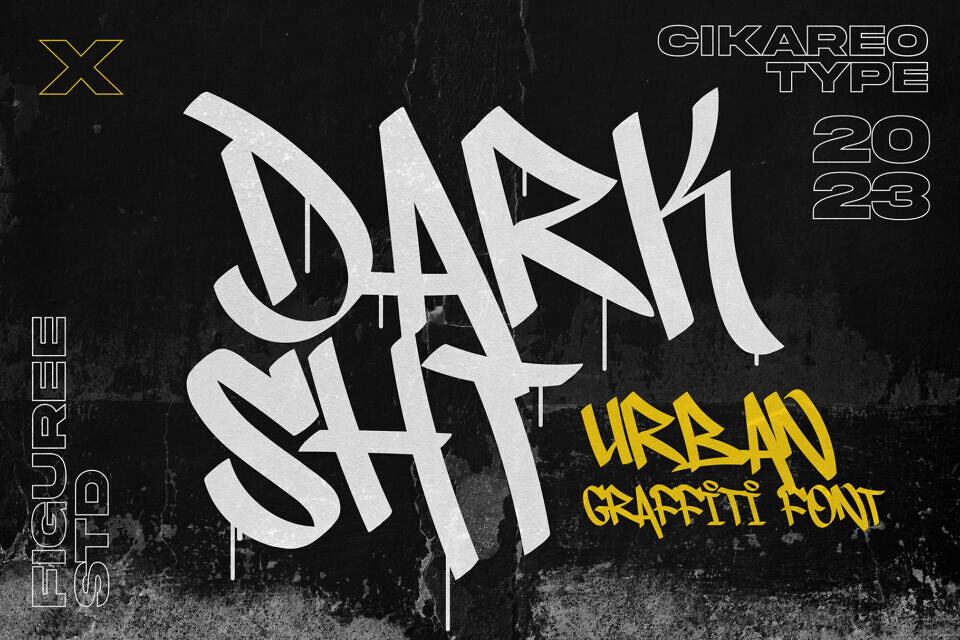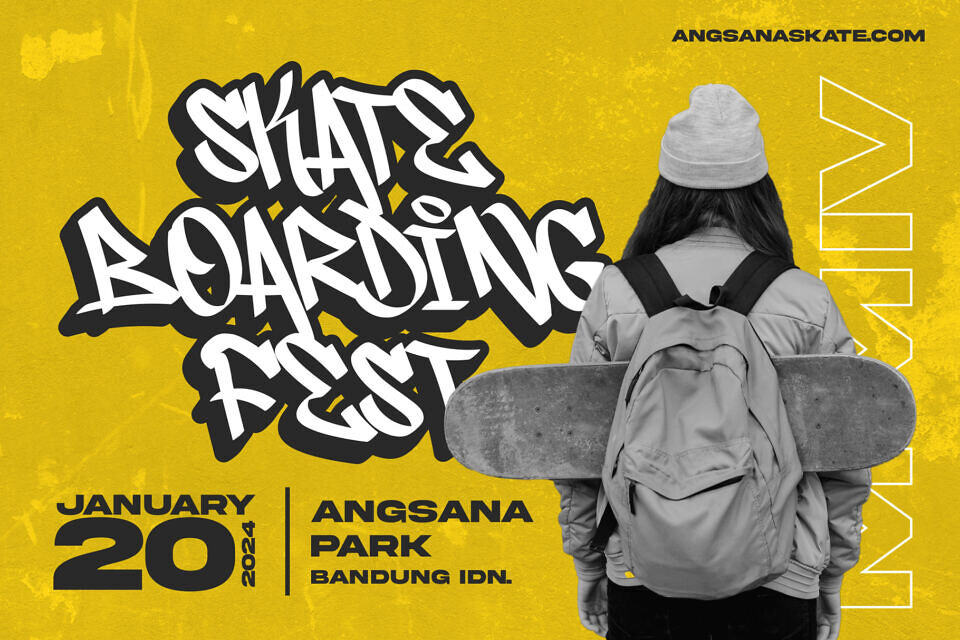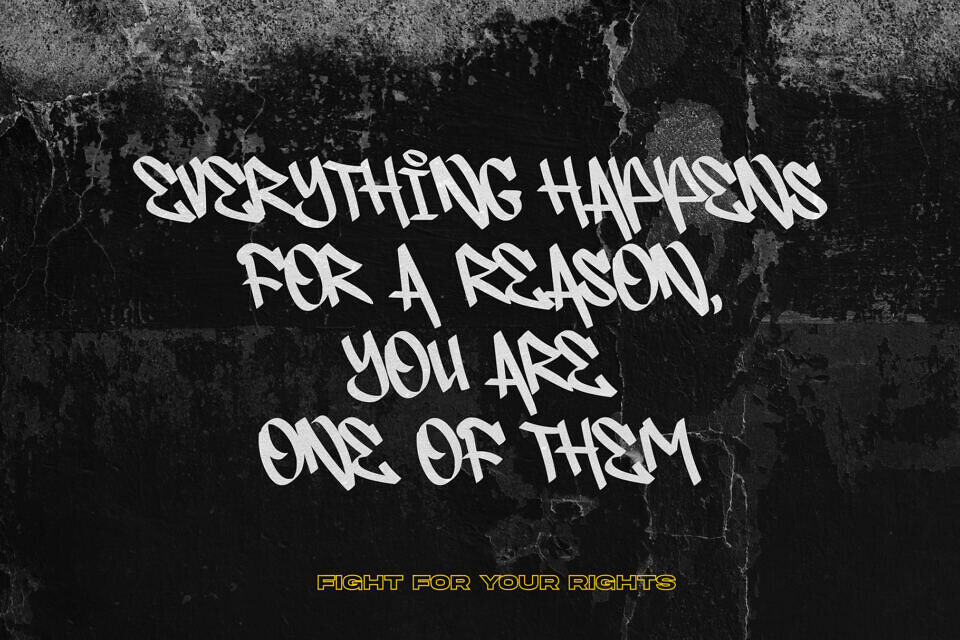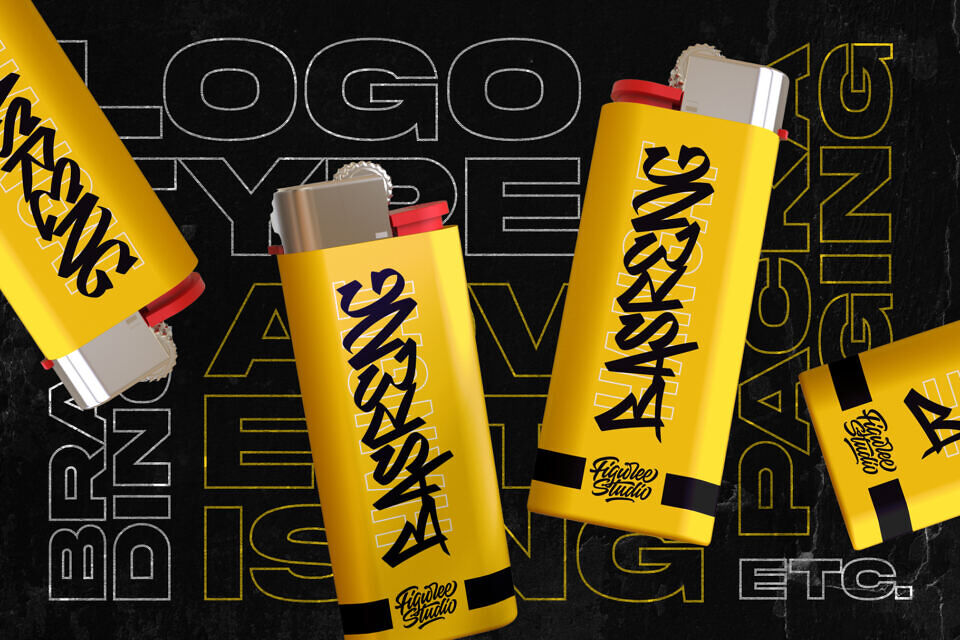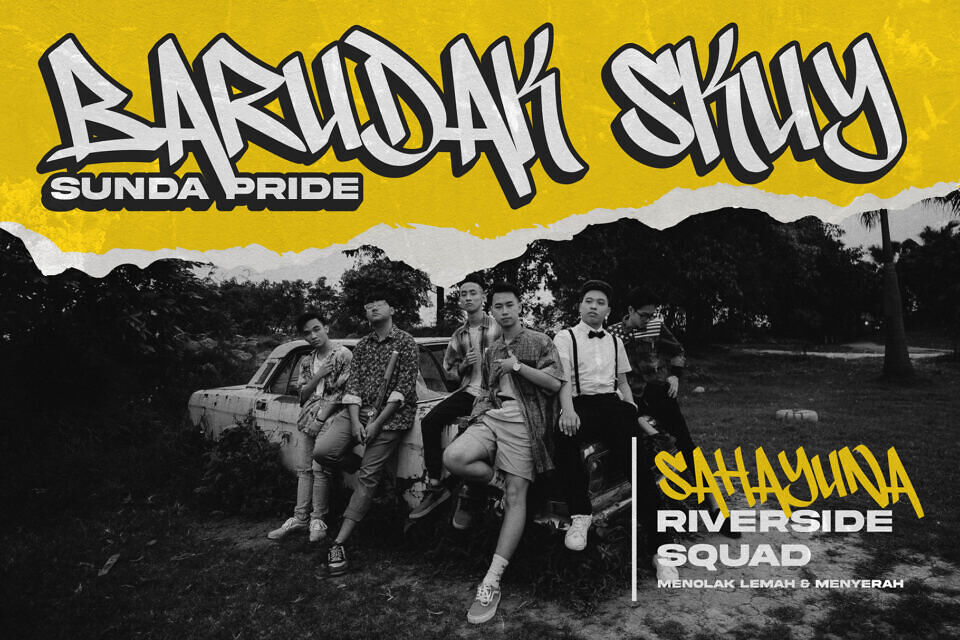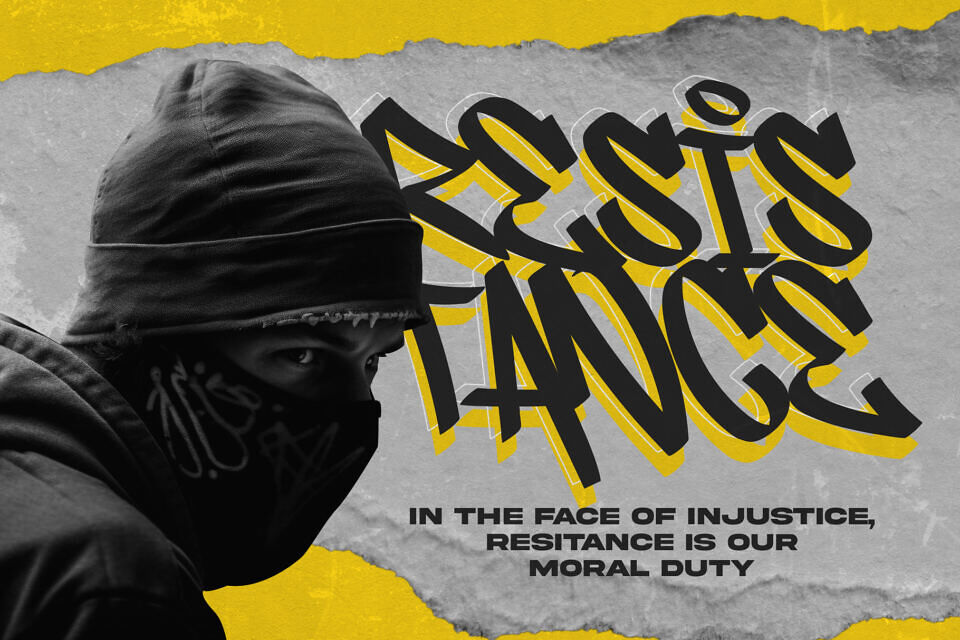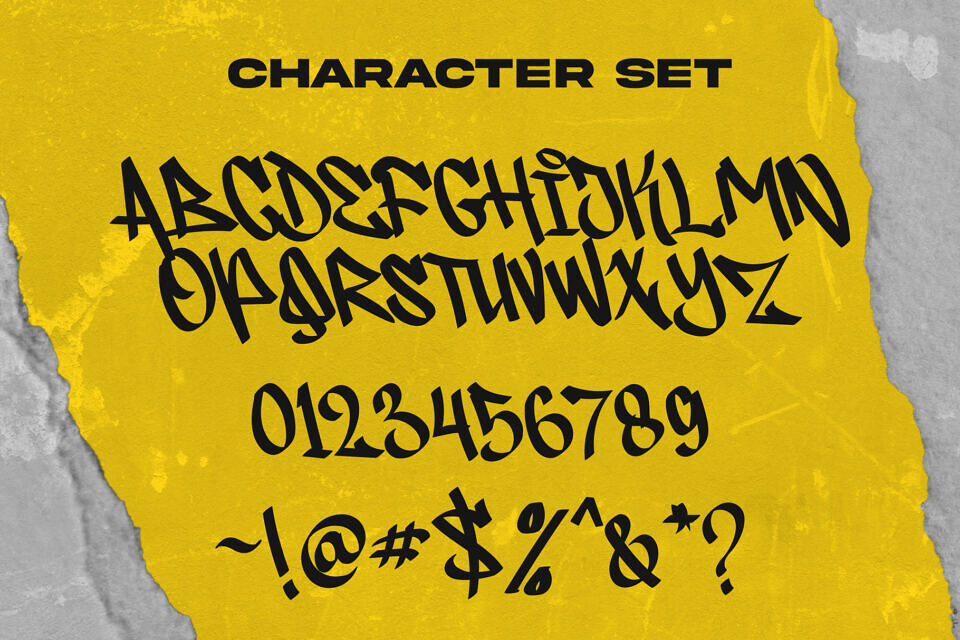
If you’re hunting for the ultimate urban graffiti font that captures street energy, bold expressions, and raw personality, meet Darksht. This graffiti typeface is a rebellious tribute to the world of street art, created to deliver electrifying visuals in every project.
With uppercase and lowercase characters, multilingual support, and rough, authentic strokes, Darksht is the font of choice for designers looking to inject attitude into their compositions.
From digital art to poster headlines, this graffiti display font stands out with its fearless energy. Whether you’re designing YouTube thumbnails, album covers, sticker packs, or social media graphics, Darksht gives your message a defiant and expressive voice.